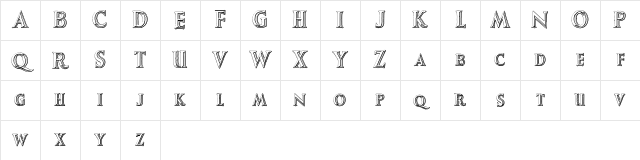
Complete Augustus Beveled Regular glyph index. Displaying only characters natively supported by Augustus Beveled Regular font.
Augustus Beveled is a composed and adaptable typeface that performs quietly and consistently across a wide range of design contexts.
Pro Tip: Use Augustus Beveled in both headline and body roles to test its range before committing to a single application.
Who designed the Augustus Beveled Regular font?